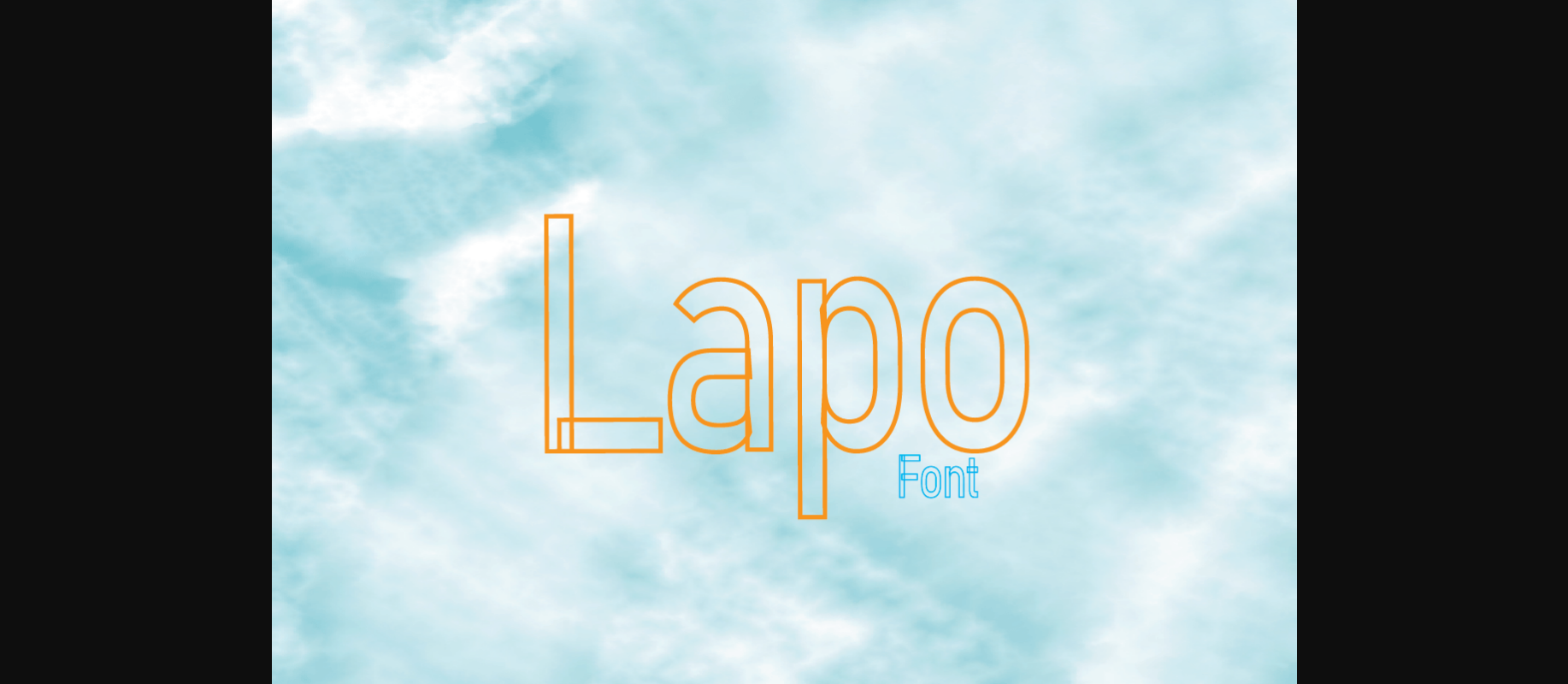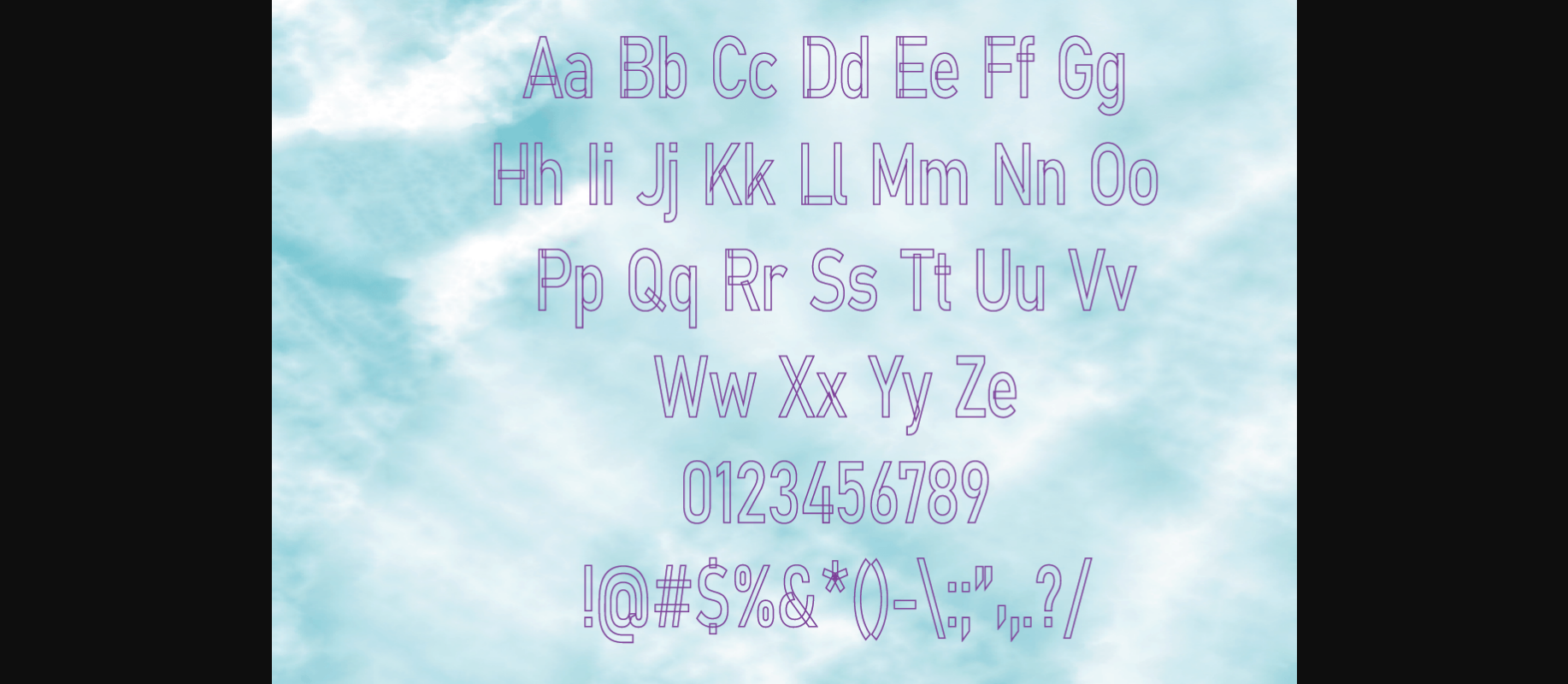
Lapo Font
About Lapo Font
Lapo is a fun, quite unique, and attractive decorative font. It’s perfect for your upcoming projects. Ideas to use the font include sublimation, greeting cards, advertisement, birthday parties, quotes, titles, brand names, book covers, and more. The options are endless!